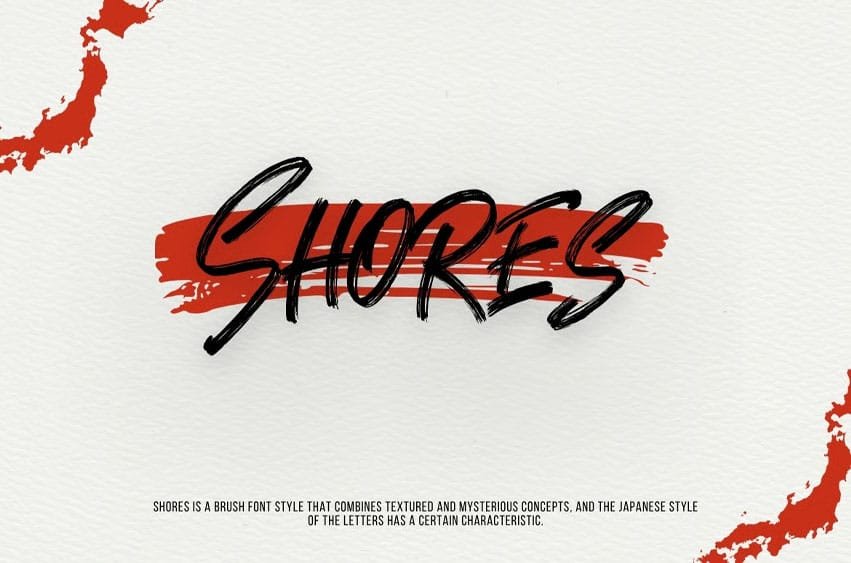
Shores Font Japan Brush Font which has a hand lettering brush style. So it looks natural like a handmade.
This texture is very detailed. This font is suitable for any purpose.